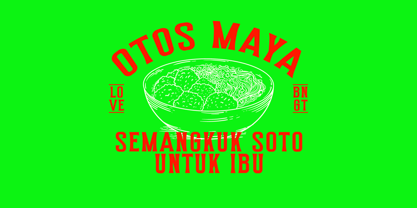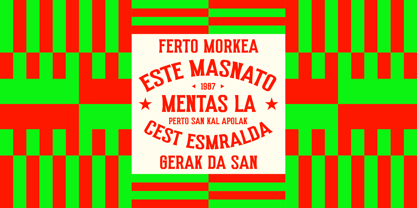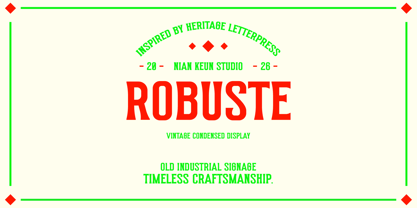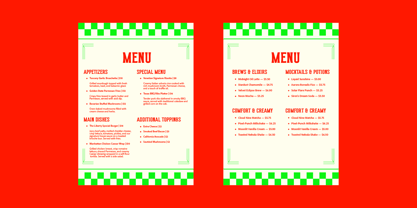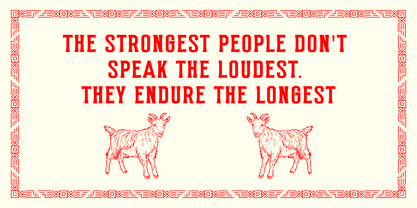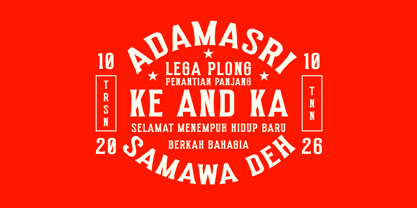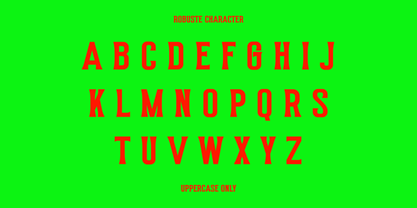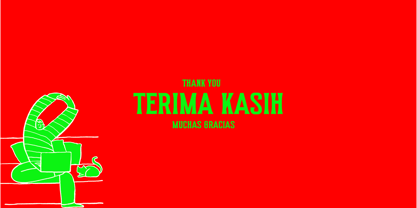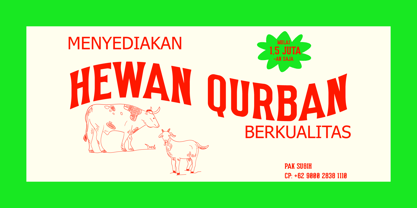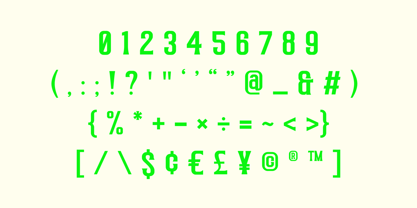
Robuste
von Nian Keun Studio
Die Schriftfamilie Robuste wurde von Mugi Raharjo entworfen und von Nian Keun Studio veröffentlicht. Robuste enthält 1 Stile. Mehr über diese Familie
Robuste is a vintage condensed display font inspired by the bold craftsmanship of heritage letterpress printing and old industrial signage. Featuring tall, sturdy letterforms with distinctive vintage details, it captures the timeless character found in classic storefronts, factory markings, packaging, and traditional advertising.
Designed to command attention, Robuste delivers a strong visual presence while maintaining excellent readability in large-format typography. Whether you're creating nostalgic branding or modern designs with a retro twist, this typeface brings authenticity, confidence, and enduring style to every project.
Perfect for:
• Branding & logo design
• Vintage packaging
• Posters & large headlines
• Signage & storefronts
• Apparel & merchandise
• Labels & product packaging
• Editorial & magazine titles
• Social media graphics
Designer: Mugi Raharjo
Foundry: Nian Keun Studio